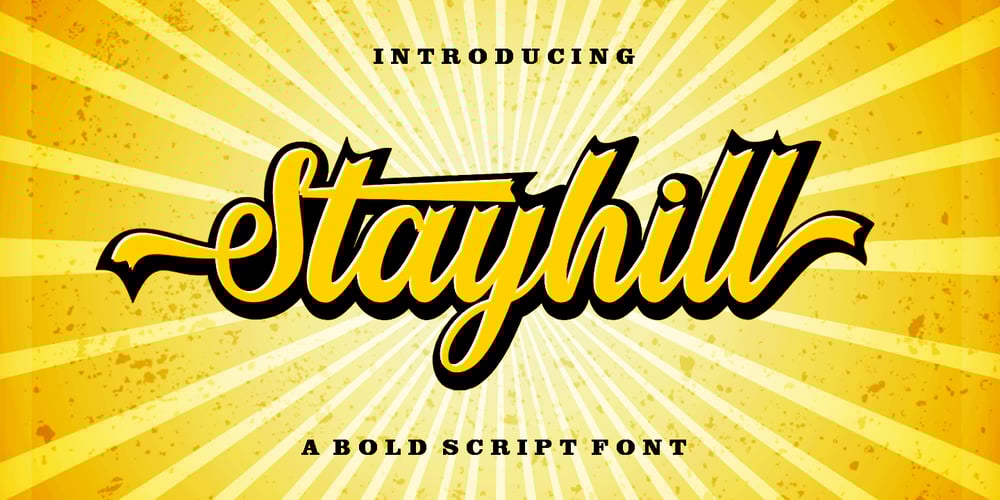
Stayhill Font Family was designed by Rizki Andika and published by Letterfreshstudio. Stayhill contains 2 styles and family package options. Stayhill Script was inspired by Retro style and combined with a Handwriting style. Stayhill has many alternative swash and features like stylistic alternates, stylistic set, ligatures and swashes so you can mix and match as you wish. Stayhill Script comes with open type features such as alternative styles, style sets and great features for logos, posters, badges, book covers, t-shirt designs, handwritten quotes, product packaging, headers, posters, merchandise, social media & greeting cards. To activate the OpenType Stylistic alternative, you need a program that supports OpenType features such as Adobe Illustrator CS, Adobe Indesign & CorelDraw X6-X7, Microsoft Word 2010 or newer versions. How to access all alternative characters, using Windows Character Map with Photoshop: https://www.youtube.com/watch?v=Go9vacoYmBw How to access all alternative characters using Adobe Illustrator: https://www.youtube.com/watch?v=XzwjMkbB-wQ Stayhill Script is coded with PUA Unicode, which allows full access to all additional characters without having special design software. Mac users can use Font Book, and Windows to attach to your favorite text editor / application. Thank you very much and please let me know if you have questions.